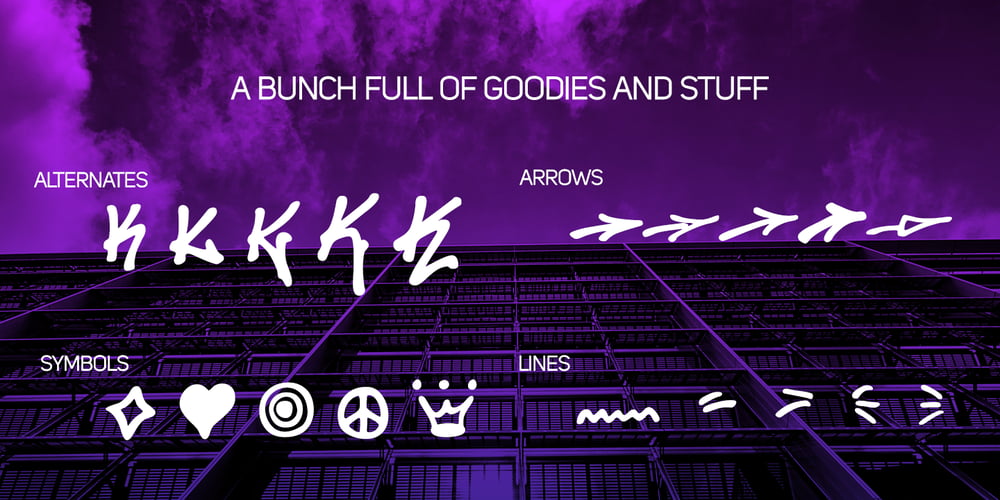
The Fresh Prince Font Family was designed by Felix Schwarze, Christian Thiele and published by Knorke. The Fresh Prince contains 1 styles and family package options. The Fresh Prince Graffiti Font was sketched with a standard felt tip marker – Street Style. We had the idea to this after some beers and the discussion about the wackness of the most Graff Fonts.